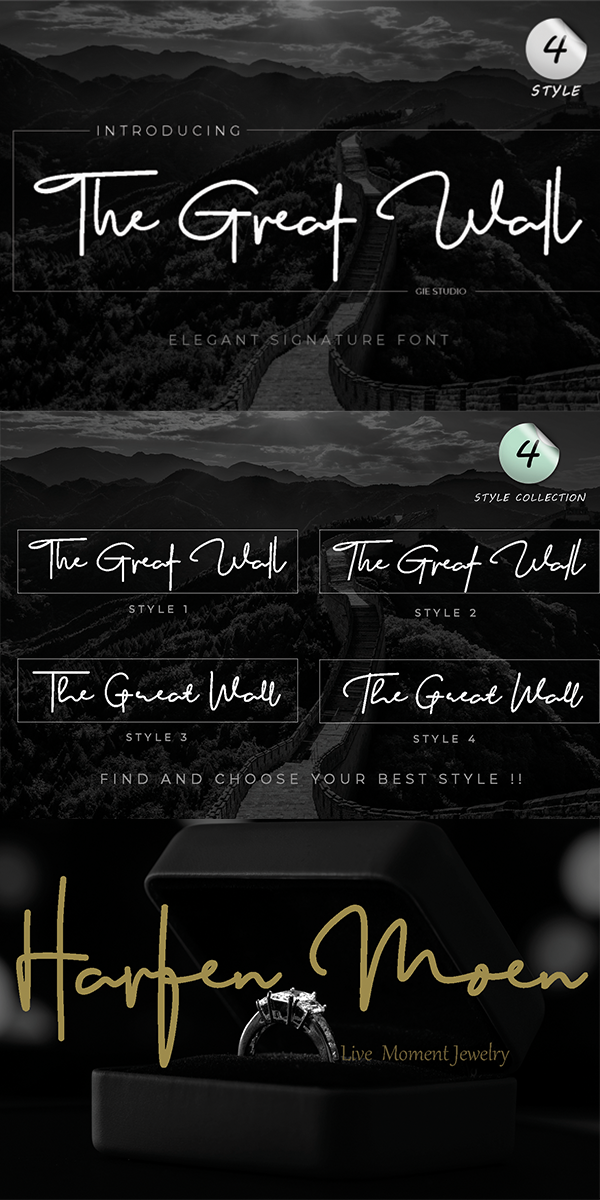
The Great Wall Font
Designed by Gie Studio
About The Great Wall
The Great Wall consists of four elegant styles. It features an incredibly classic style, while still keeping a friendly feel. The Great Wall is the perfect font for making original and outstanding designs.
This font consists of 4 styles with different styles namely The Great Wall 1, 2, 3 and 4.